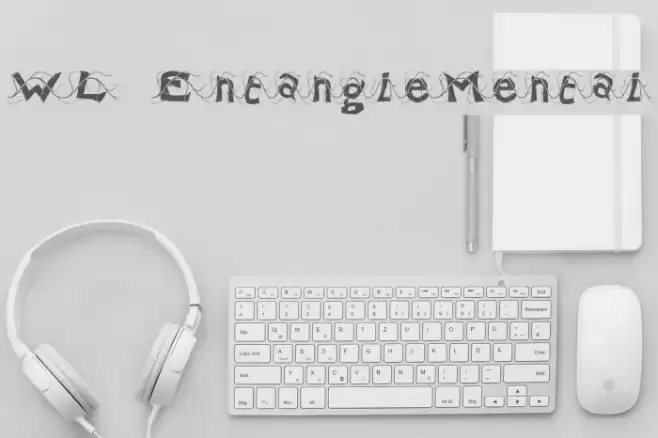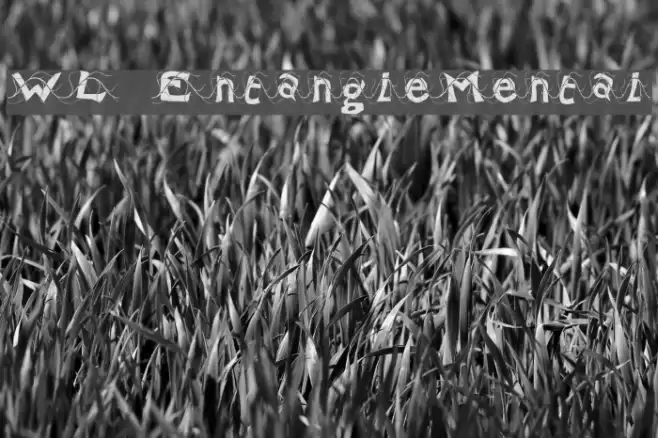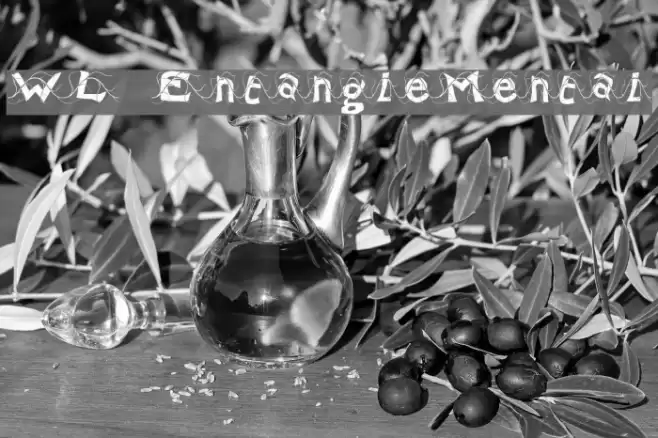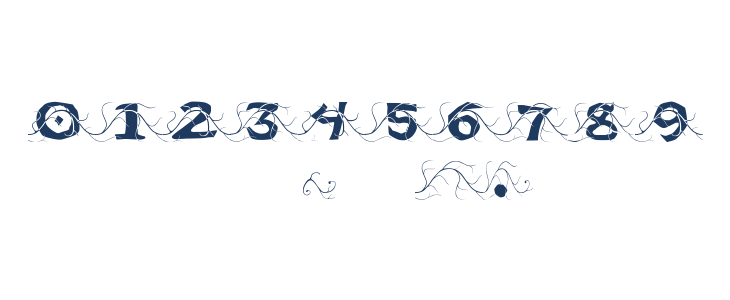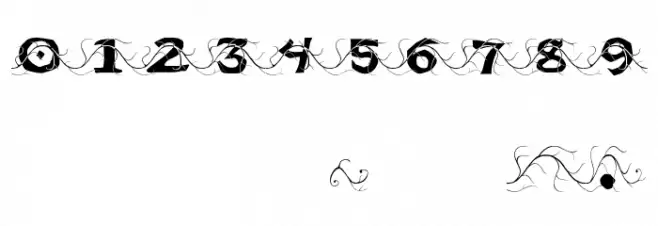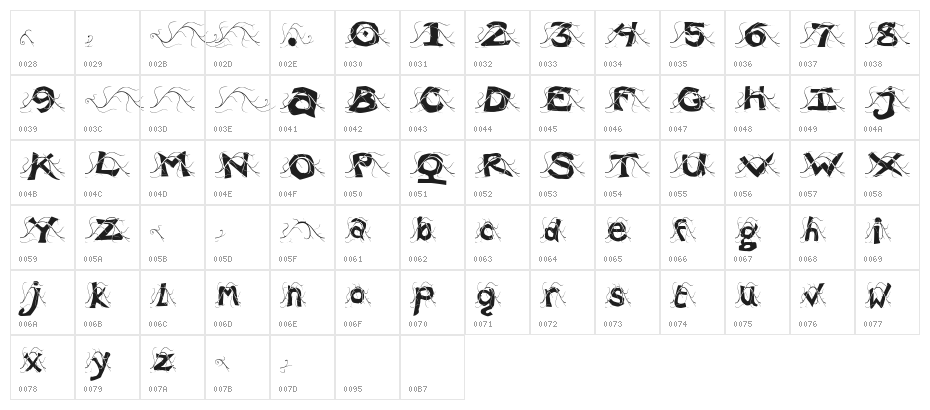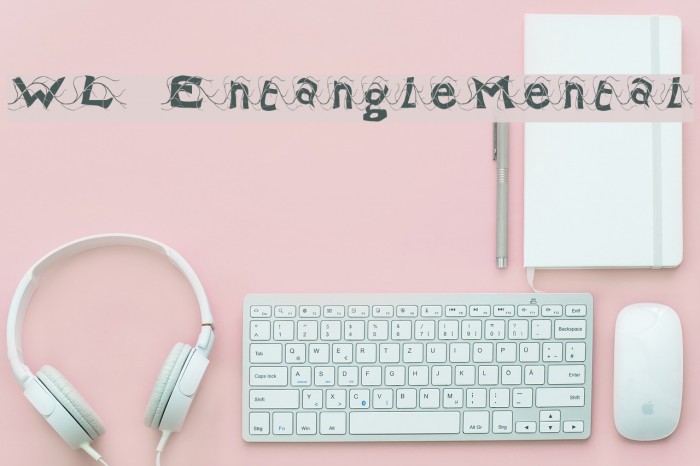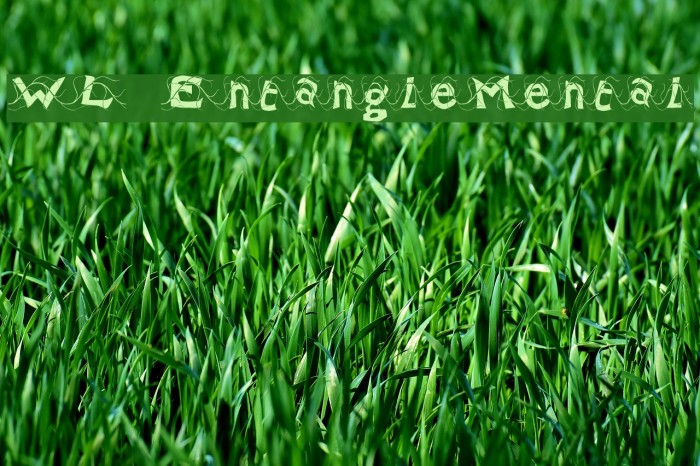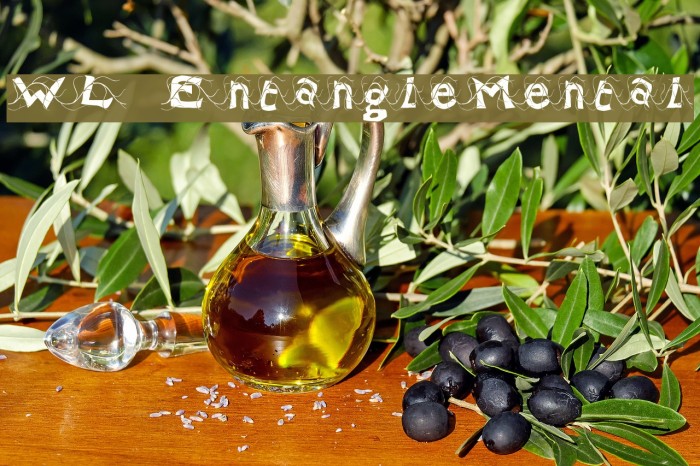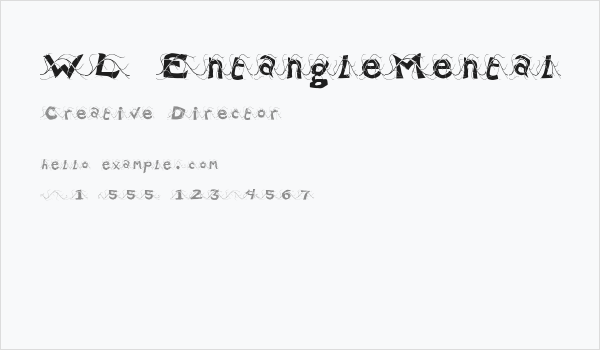
WL EntangleMental Font
WL EntangleMental Description
This font features an intricate and artistic design, characterized by swirling, entangled lines that wrap around each letter. The letters are bold and have a decorative flair, making them stand out with their unique, almost whimsical appearance. The uppercase and lowercase letters maintain a consistent style, with the swirling elements adding a sense of movement and complexity. The numbers and special characters follow the same design principles, ensuring a cohesive look across all characters. This font is ideal for projects that require a touch of creativity and elegance, offering a visually striking option for artistic and decorative purposes.
An artistic font with swirling, entangled lines creating a whimsical and decorative style from Decorative fonts.
- Proposed Projects: Ideal for artistic projects, decorative headings, invitations, and creative branding.
- Use Case: Headlines, Logos, Artistic projects